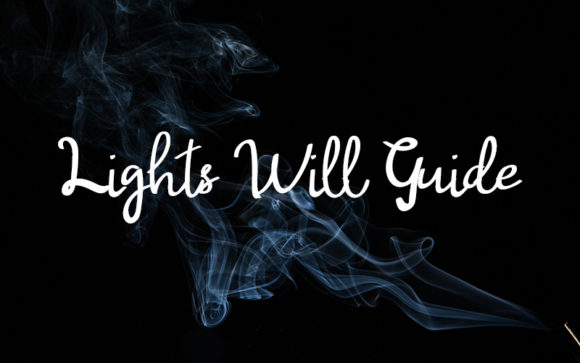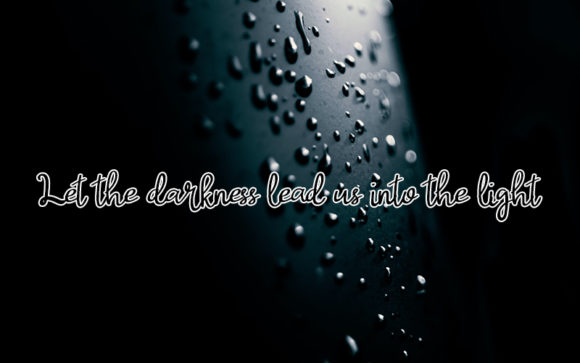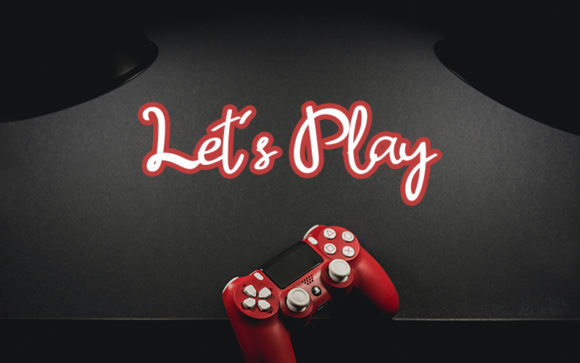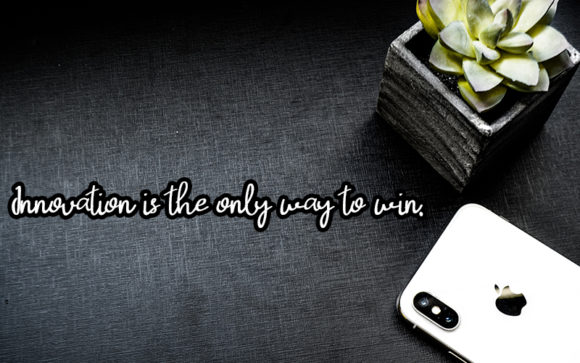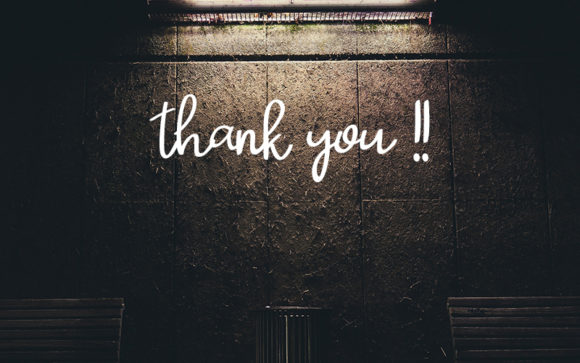
Next Gen Font
About Next Gen Font
Next Gen is a flowing handwritten font, described by an elegant touch, perfect for your favorite projects. Fall in love with its incredibly distinct and timeless style and use it to create spectacular designs!